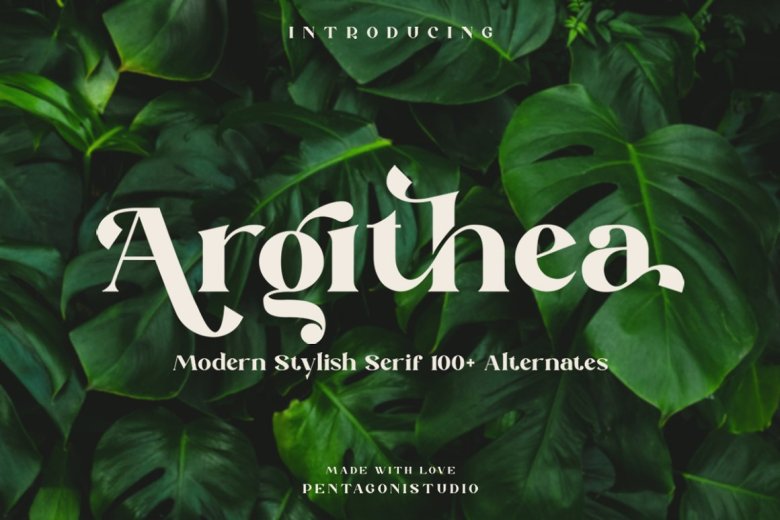
Argithea Font
Argithea Serif Font is a modern stylish typeface Inspired By Bold Modern Stylish Serif and Vintage Curves. It would be a perfect choice to design posters, affiches, logos, t-shirt and magazine prints, eye-pleasing typographic designs and more.
Argithea Serif Font